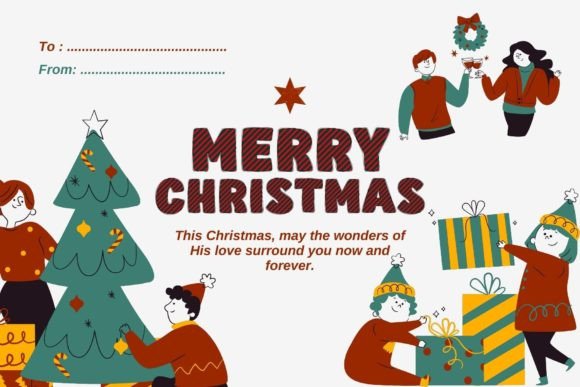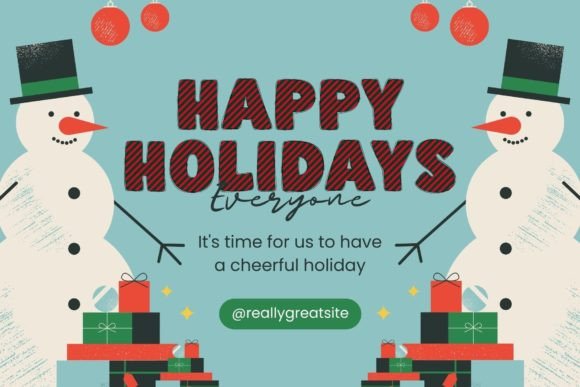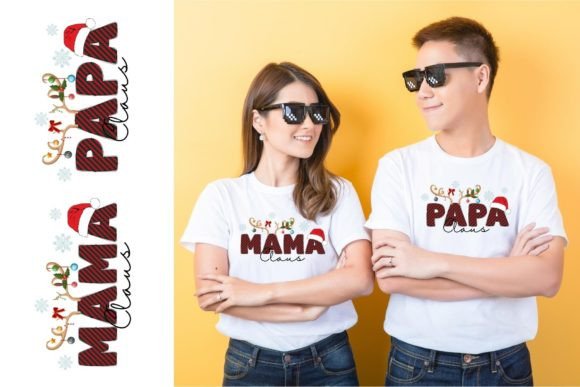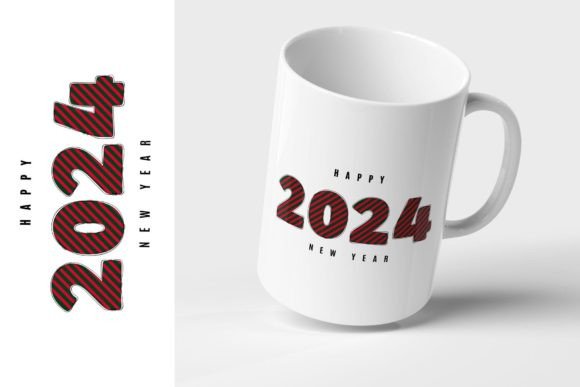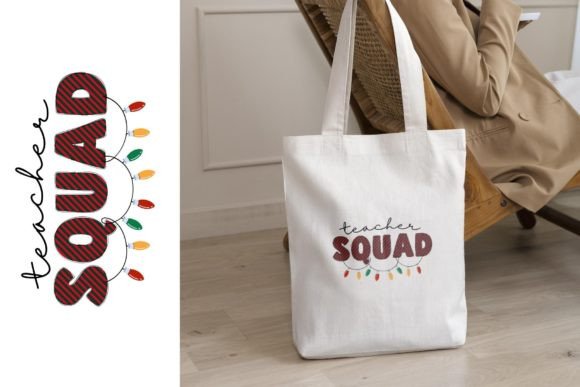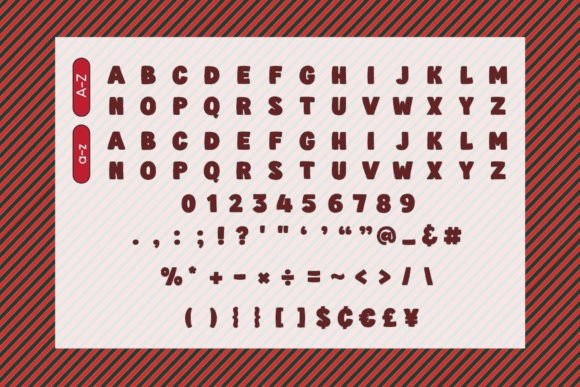
Introduction to Fox Xmas-v3 Font
Fox Xmas-V3 is a cute and festive decorative color font.
Fall in love with its authentic feel and use it to create gorgeous invitations, beautiful stationary art, eye-catching social media posts, and cute greeting cards Add this beautiful font to each of your creative ideas, and notice how it makes them stand out.